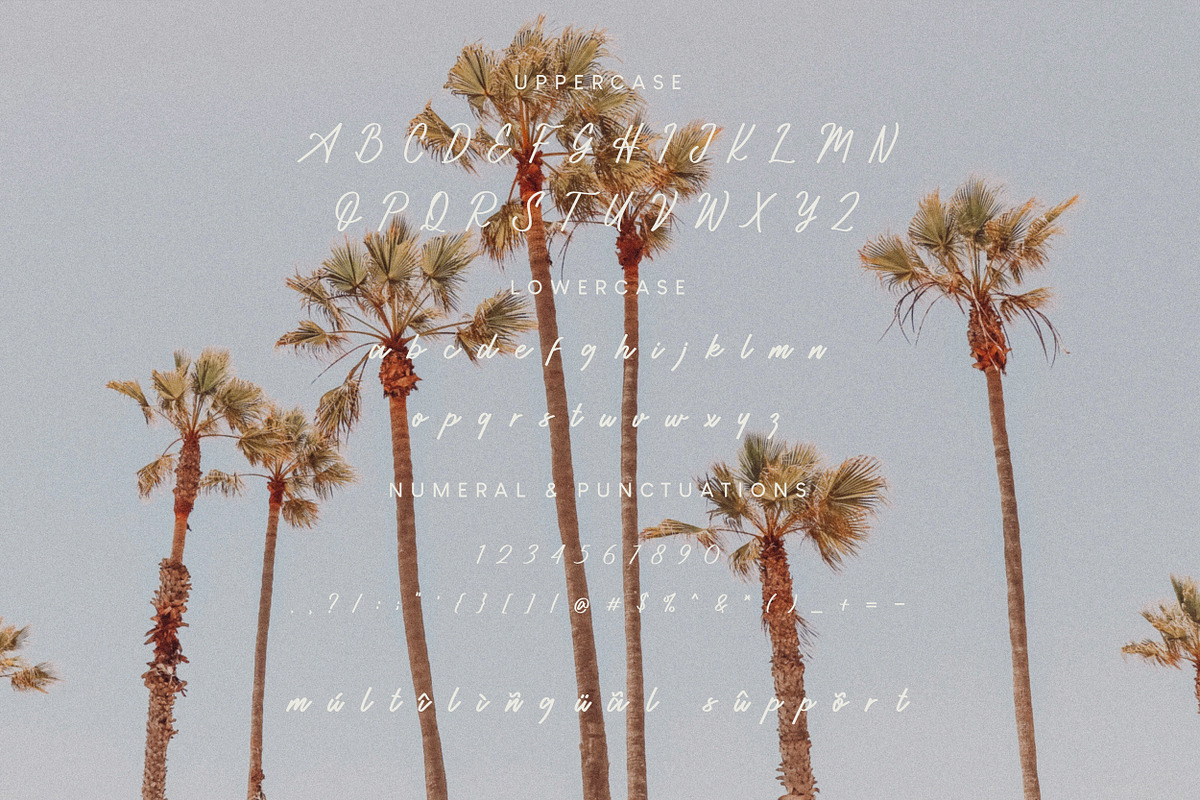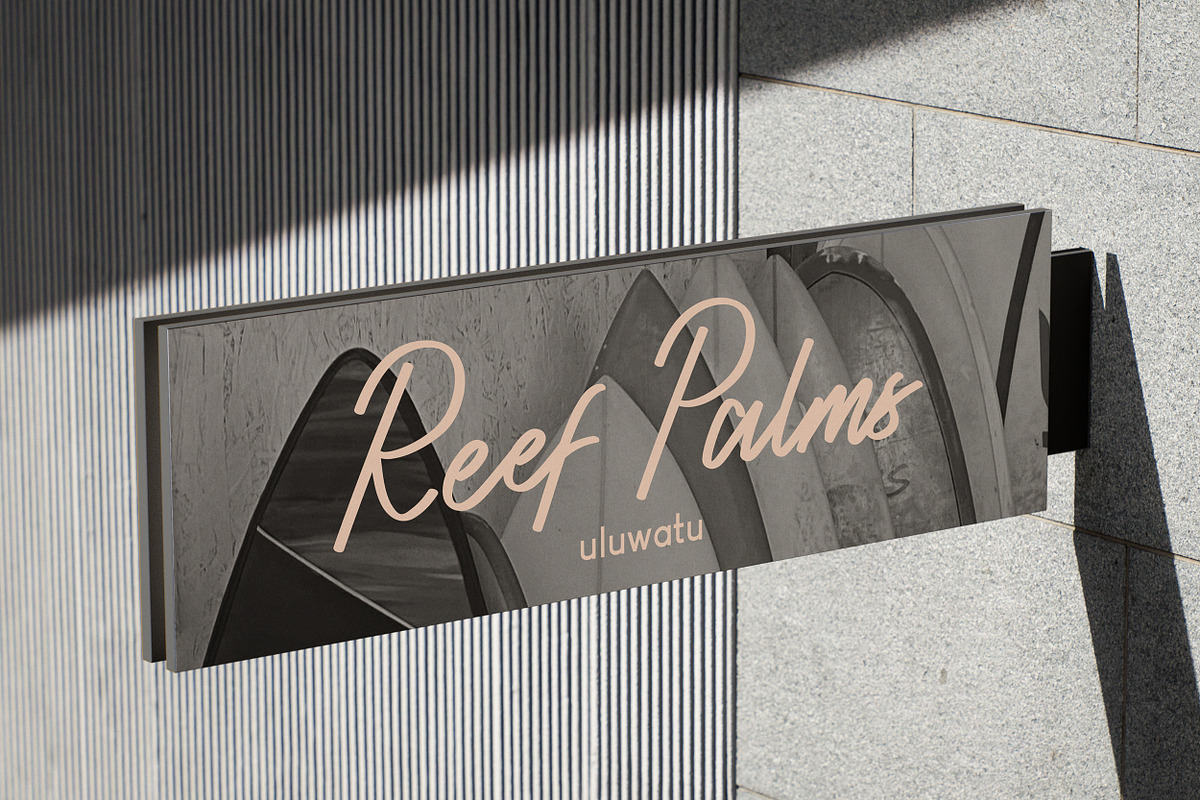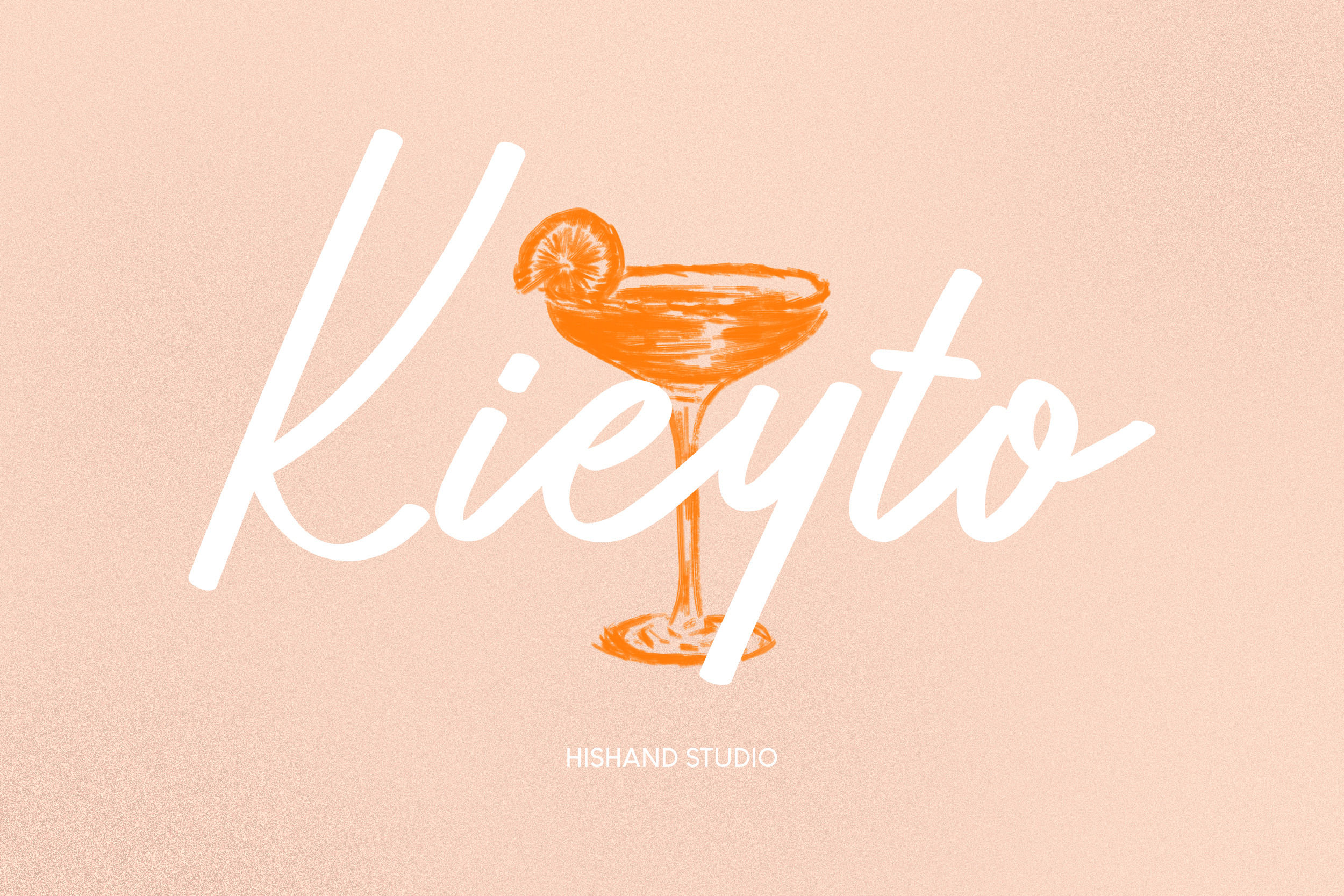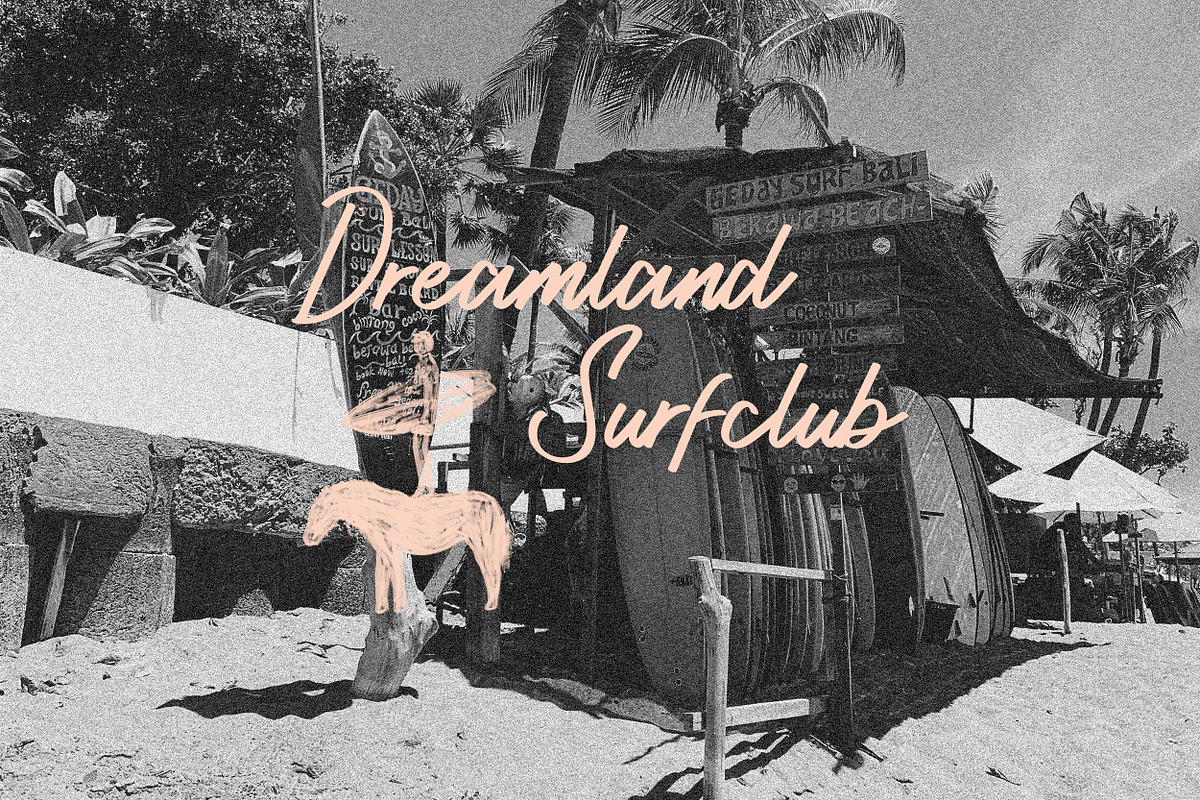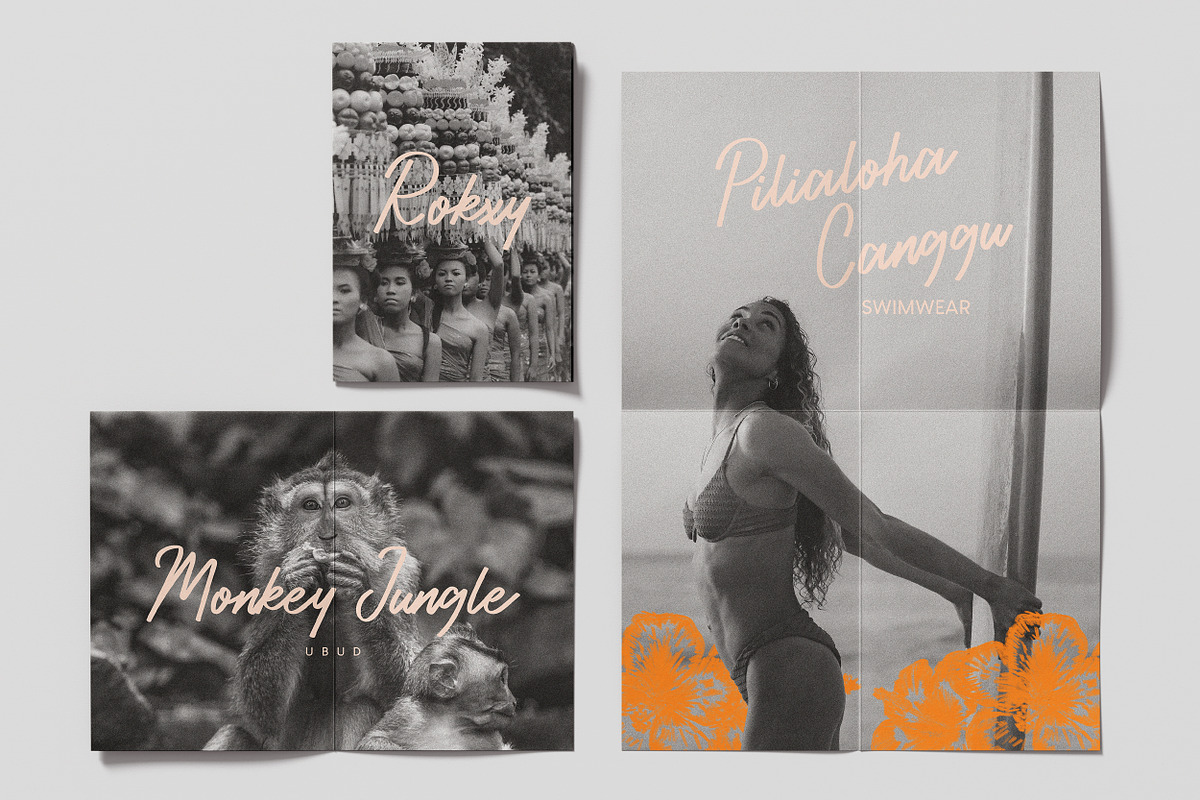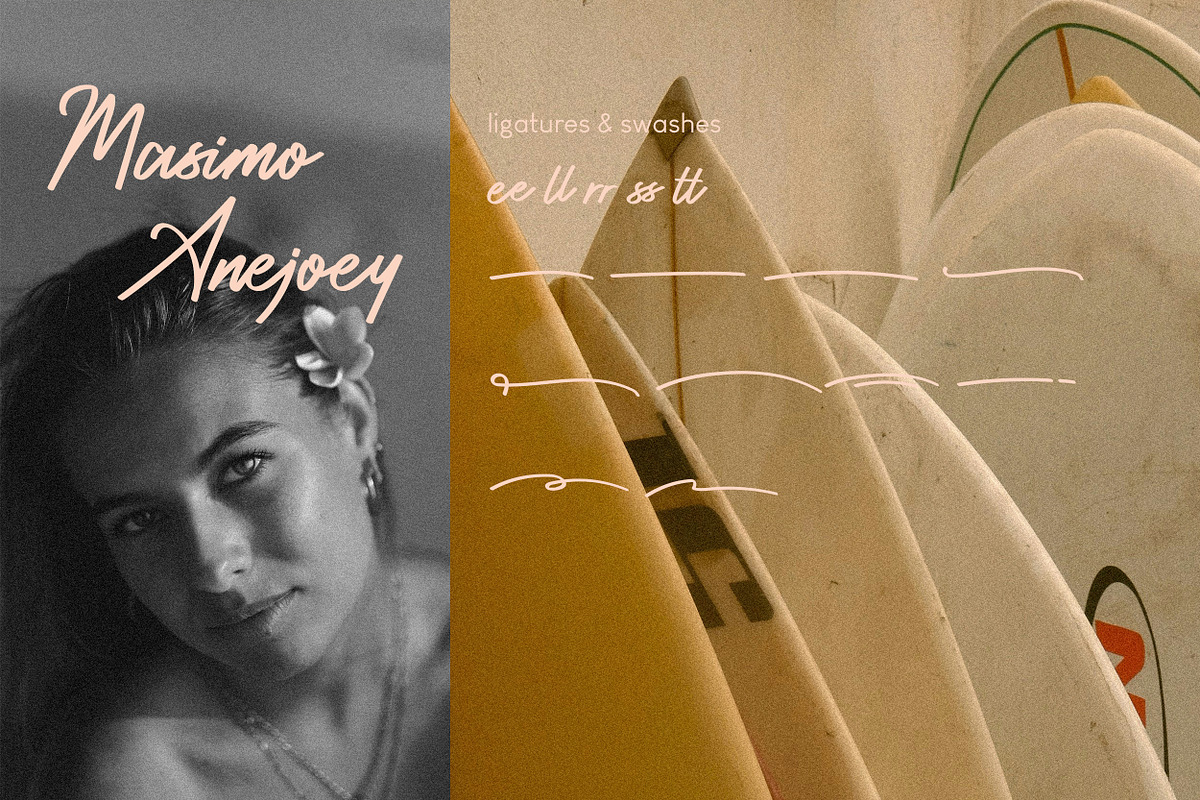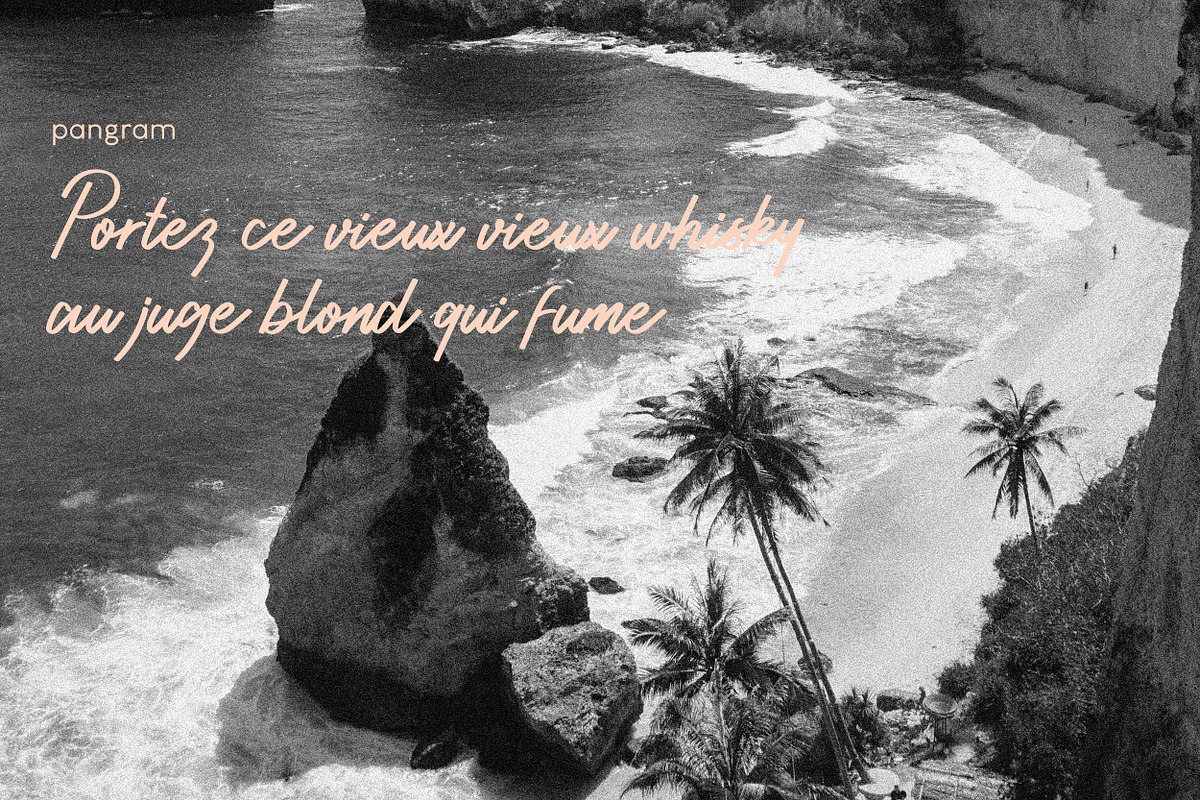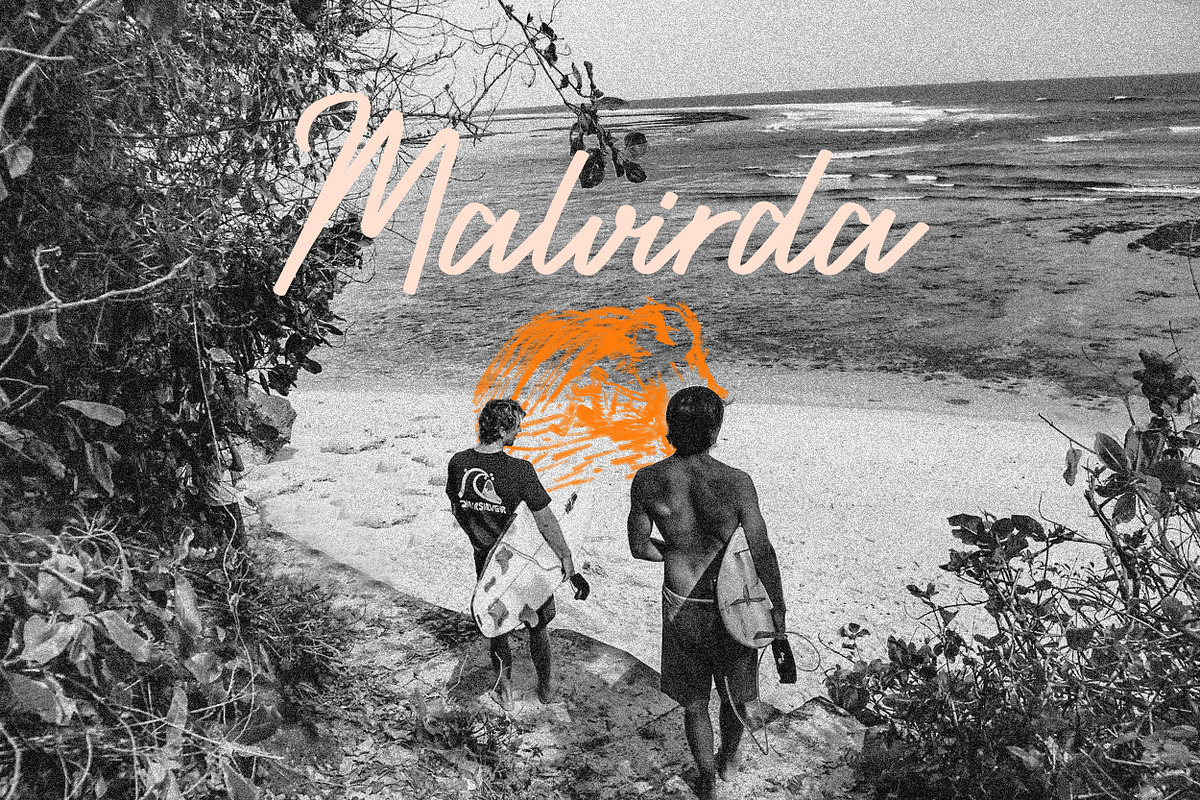
Kieyto Script Font
Kieyto is a handwritten script font with a relaxed, expressive style inspired by natural brush lettering. It features smooth flowing strokes, organic curves, and a casual rhythm that gives the typeface a warm and approachable character. The subtle irregularities in each letter add a handcrafted feel, helping the font appear natural rather than rigid or overly polished.
The letterforms are bold yet soft, with fluid connections that maintain good readability while preserving an informal, creative tone. Kieyto works well with clean layouts and soft color palettes, making it suitable for café branding, drink labels, menus, packaging, posters, and social media graphics. It is especially effective for logos and headlines that aim to feel friendly and modern.
Overall, Kieyto is a versatile script font designed to add personality and charm to designs that benefit from a casual, hand-drawn aesthetic without appearing unrefined.
Complete with
- uppercase
- lowercase
- swashes
- multilingual support